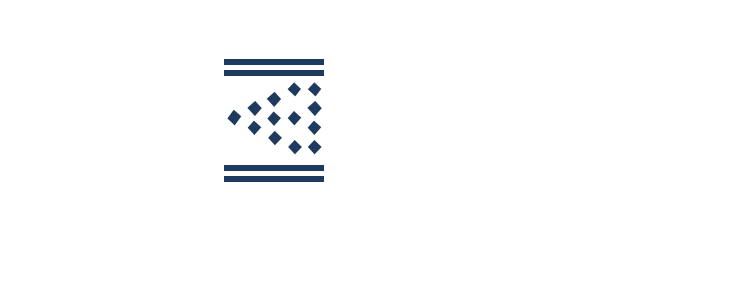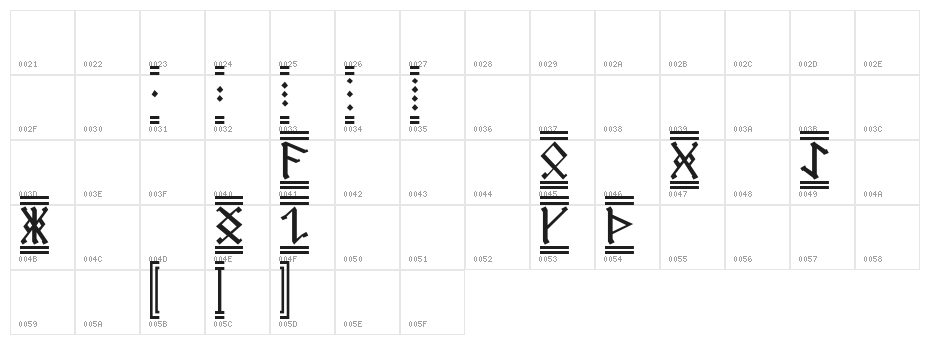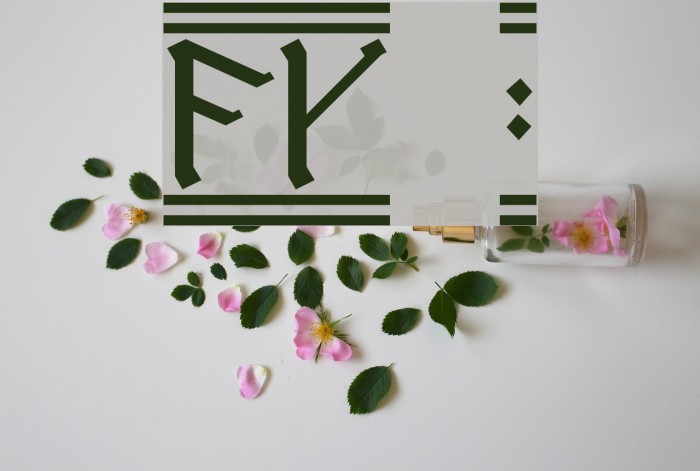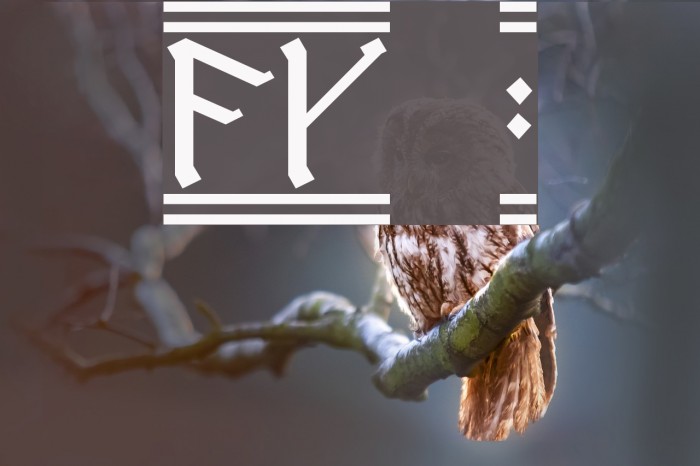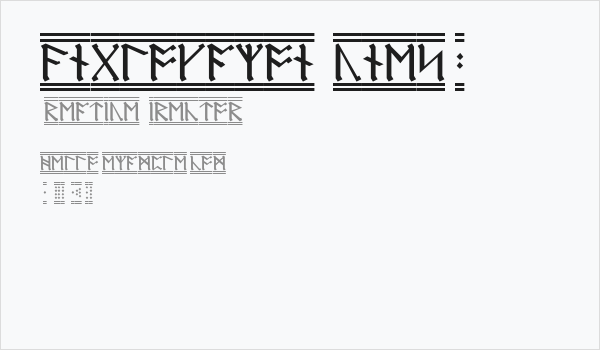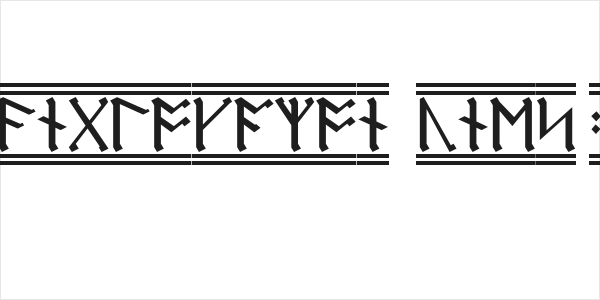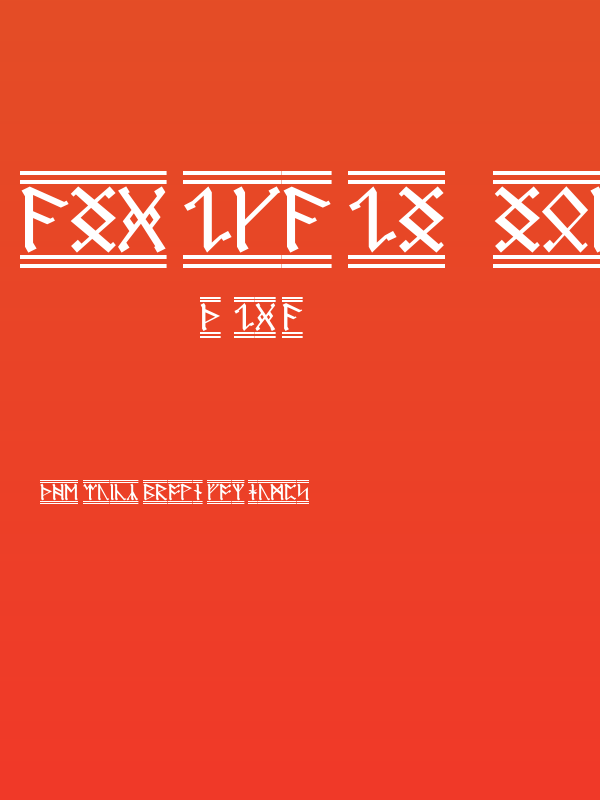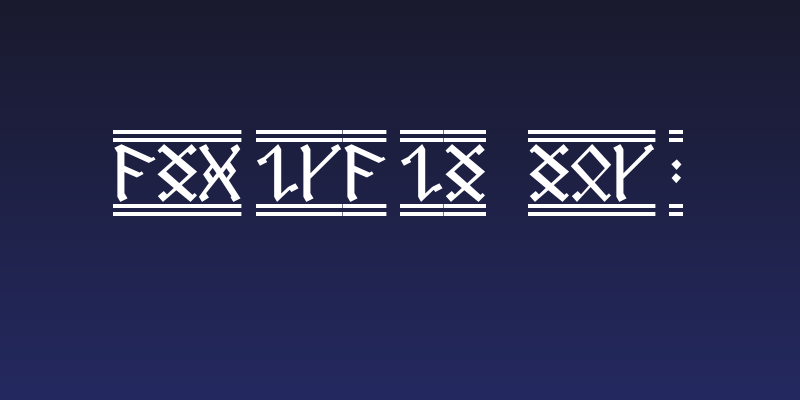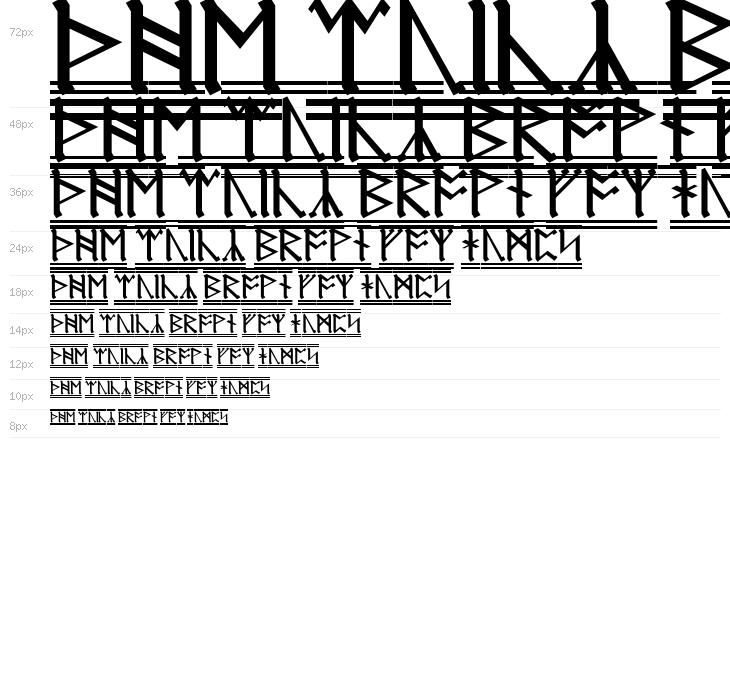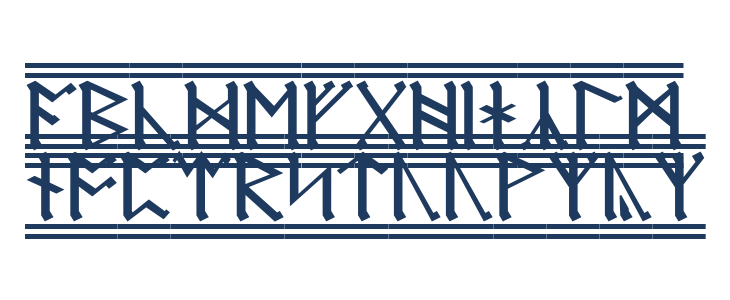
AngloSaxon Runes 2 Font
AngloSaxon Runes 2 Description
This font is a decorative typeface inspired by ancient Anglo-Saxon runes. It features angular, geometric shapes with sharp edges and distinct lines, reminiscent of historical inscriptions. The characters are bold and striking, with a uniform thickness that gives them a strong presence. The style is highly decorative, making it suitable for thematic projects that require a historical or mystical aesthetic. The font does not include lowercase letters or numbers, focusing instead on a unique set of symbols and uppercase characters that evoke a sense of antiquity.
| Use Case | Logos, Headlines, Thematic Designs |
| Proposed Projects | Ideal for historical-themed designs, fantasy book covers, game titles, or any project requiring a mystical or ancient aesthetic. |